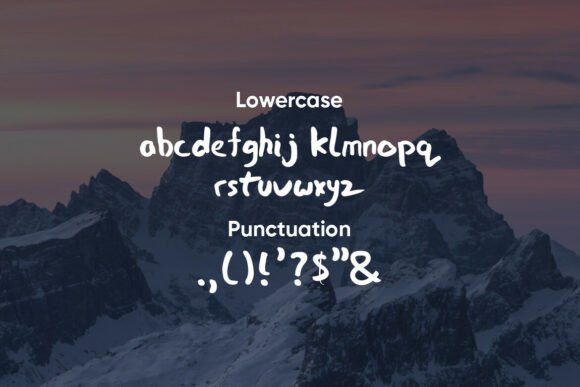
Alistol Font: The Epitome of Elegant Handwritten Typography
Alistol Font is a beautiful, elegant, and charming handwritten font that has captured the hearts of designers and typography enthusiasts alike. Its smooth curves, fluid strokes, and natural penmanship make it an ideal choice for a wide range of design projects. In this article, we’ll explore the world of Alistol Font, its features, and how it can elevate your designs to new heights.
What Makes Alistol Font So Special?
Alistol Font is more than just a typography; it’s an expression of elegance and sophistication. Its casual yet refined style makes it versatile and perfect for both formal and informal projects. The font flows like real handwriting, giving your text a sense of authenticity and emotional depth that is hard to replicate with traditional fonts.
- Smooth Curves and Fluid Strokes: Alistol’s smooth curves and fluid strokes are what set it apart from other handwritten fonts. Its natural flow makes it feel like it was written with a pen, rather than a digital font.
- Personal and Heartfelt Touch: Alistol brings a personal, heartfelt touch to any design. Whether you’re creating wedding invitations, personal branding, or social media posts, Alistol adds a warm and authentic feel that resonates with your audience.
- Versatility: Alistol’s casual yet refined style makes it perfect for both formal and informal projects. You can use it for wedding invitations, business cards, social media posts, product packaging, and more.
Design Applications of Alistol Font
Alistol Font is a versatile typography that can be used in a wide range of design applications. Here are some of the most popular ways to use Alistol:
- Wedding Invitations: Alistol’s elegant and sophisticated style makes it perfect for wedding invitations. Add a personal touch to your wedding stationery with Alistol.
- Personal Branding: Establish your personal brand with Alistol. Use it for your logo, business cards, and website to create a cohesive and professional look.
- Social Media Posts: Make your social media posts stand out with Alistol. Its casual yet refined style is perfect for creating engaging and authentic content.
- Product Packaging: Add a personal touch to your product packaging with Alistol. Make your products stand out on store shelves with this beautiful handwritten font.
Typography Tips for Using Alistol Font
Here are some typography tips to help you get the most out of Alistol Font:
- Pair it with Other Fonts: Alistol pairs well with other fonts, especially sans-serif fonts. Experiment with different font combinations to create a unique look.
- Use it in Moderation: While Alistol is a beautiful font, it’s best to use it in moderation. Use it for headings, titles, or quotes to add emphasis and create visual interest.
- Experiment with Colors: Alistol looks great in a variety of colors. Experiment with different colors to find the perfect shade that matches your brand’s aesthetic.
Inspiration: How Alistol Font Can Elevate Your Designs
Alistol Font has the power to elevate your designs and make them more engaging and authentic. Here are some inspiring examples of how Alistol can be used:
- Wedding Stationery: Create beautiful wedding stationery with Alistol. From invitations to thank-you cards, Alistol adds a personal touch to your wedding stationery.
- Personal Blog: Establish your personal brand with Alistol. Use it for your blog’s logo, headings, and body text to create a cohesive and professional look.
- Product Labels: Make your product labels stand out with Alistol. Add a personal touch to your product packaging and make it more engaging.
In conclusion, Alistol Font is a charming and elegant handwritten font that can elevate your designs to new heights. Its smooth curves, fluid strokes, and natural penmanship make it perfect for a wide range of design applications. Whether you’re creating wedding invitations, personal branding, social media posts, or product packaging, Alistol adds a warm and authentic feel that resonates with your audience.